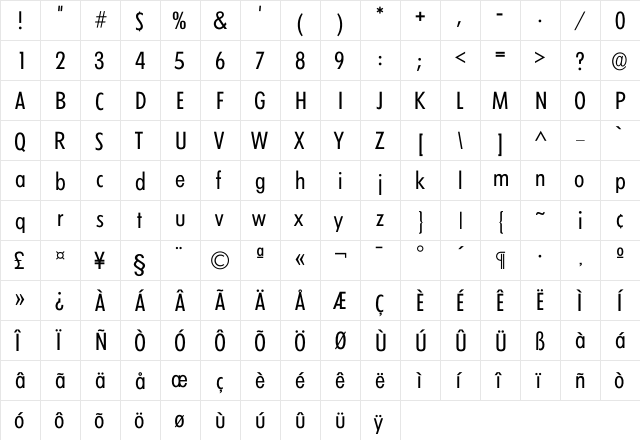
Climerick Regular
Design Context for Climerick Typeface
Climerick takes a measured approach to typography — its balanced proportions and neutral character make it a reliable workhorse for both digital and print work.